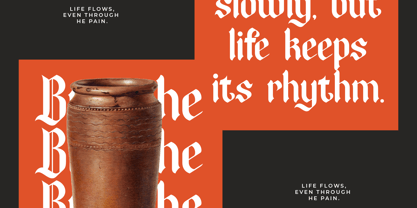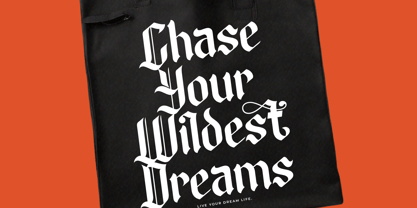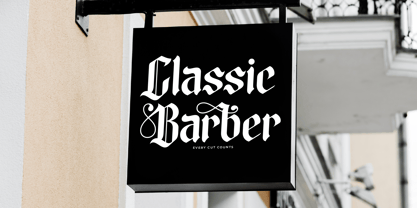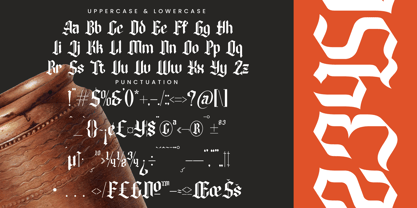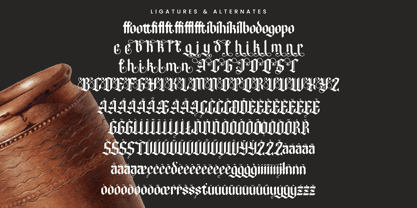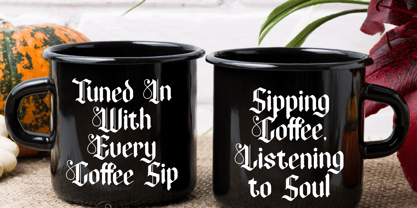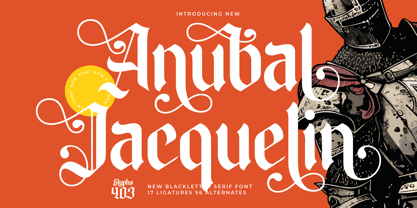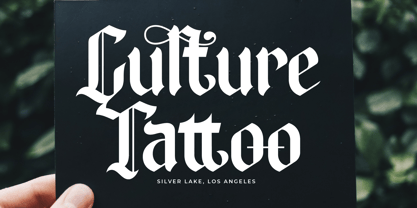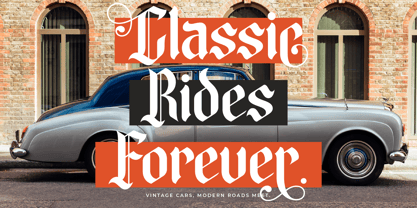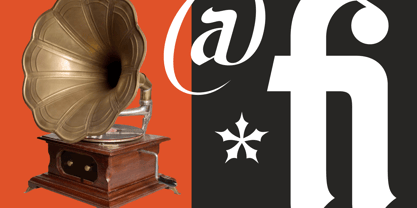
Anubal Jacquelin
The Anubal Jacquelin Font Family was designed by Heru Utama Putra and published by Timelesstype Studio. Anubal Jacquelin contains 2 styles and family package options.
Anubal Jacquelin - Blackletter Serif Font , from Timelesstype , Suitable for any projects such as: logos, branding projects, homeware designs, product packaging, mugs, quotes, posters, shopping bags, t-shirts, book covers, name card, invitation cards, greeting cards, label, photography, watermark, special events, and all your other luxury and beautiful projects that need a Luxury Serif taste.